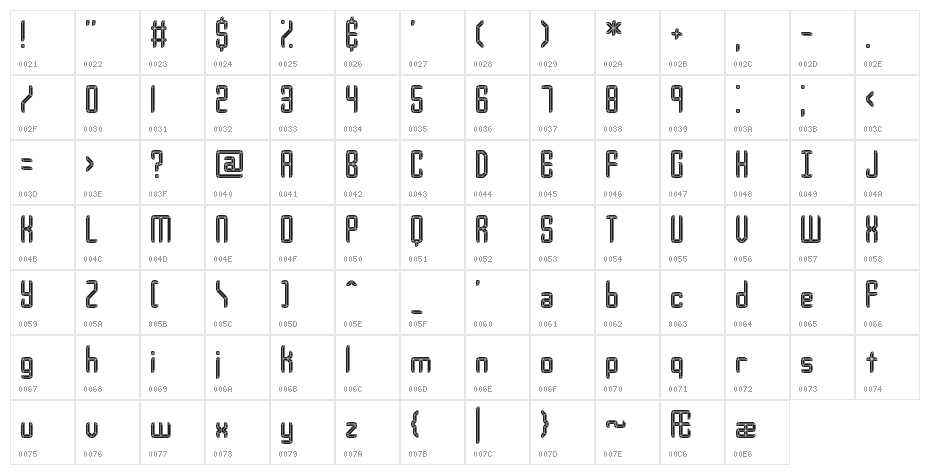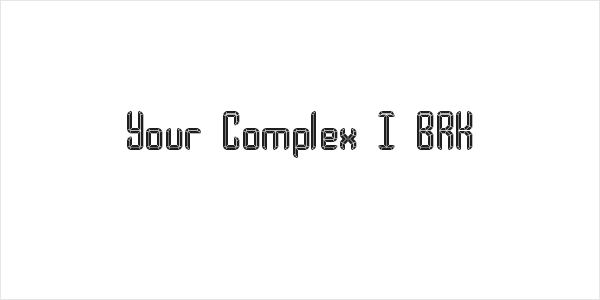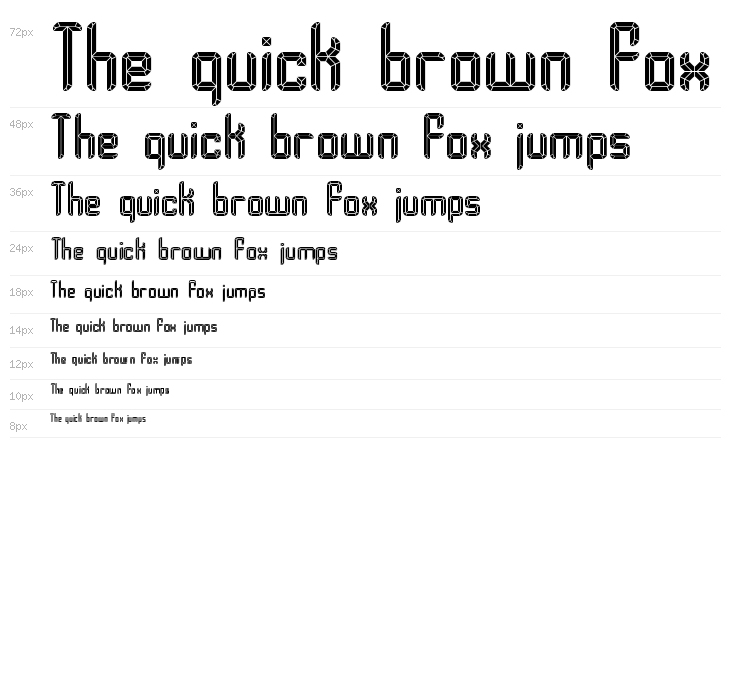
Your Complex I BRK Font
Your Complex I BRK Description
This font features a bold, geometric design with a three-dimensional effect. Each character is constructed with angular lines and sharp edges, creating a sense of depth and structure. The uppercase and lowercase letters maintain a consistent style, with the lowercase being slightly more compact. Numbers and special characters follow the same design principles, ensuring uniformity across all glyphs. The font's unique appearance makes it stand out, ideal for projects requiring a modern and edgy look.
| Proposed Projects | Ideal for futuristic designs, tech branding, video game titles, and posters. |